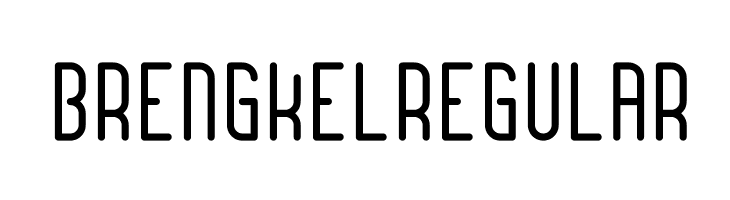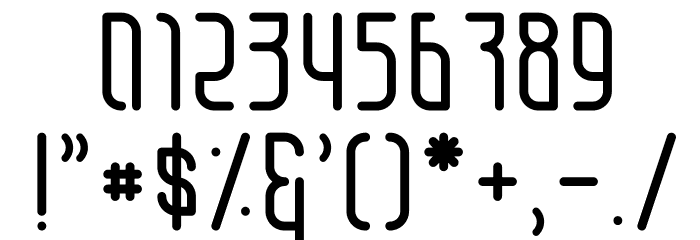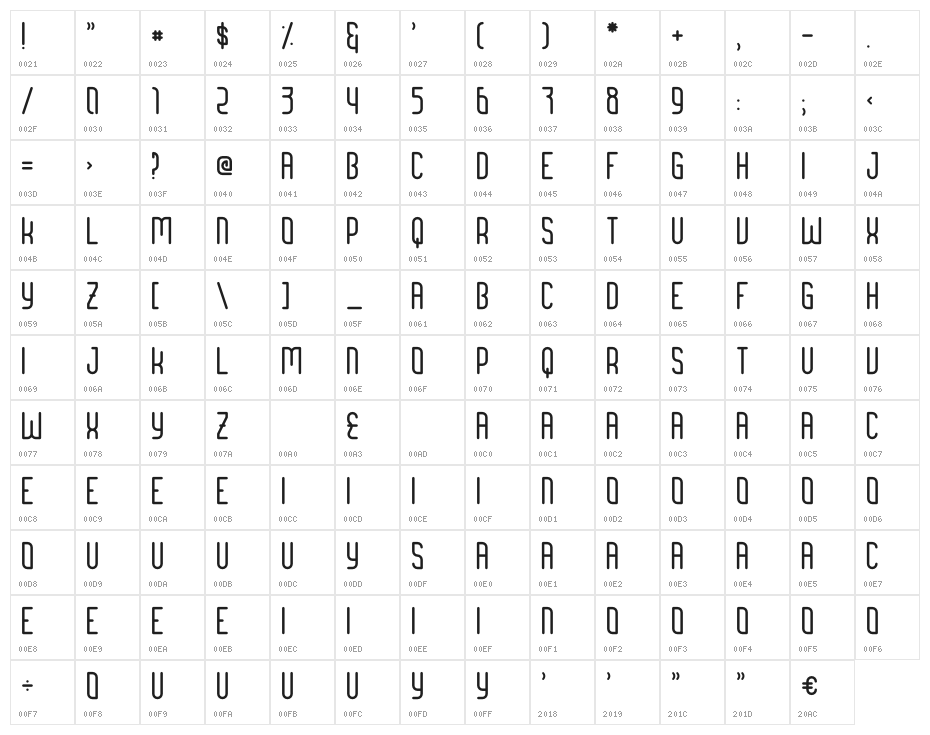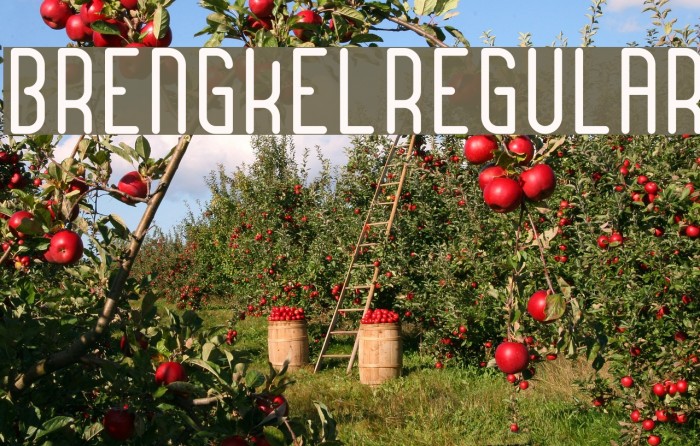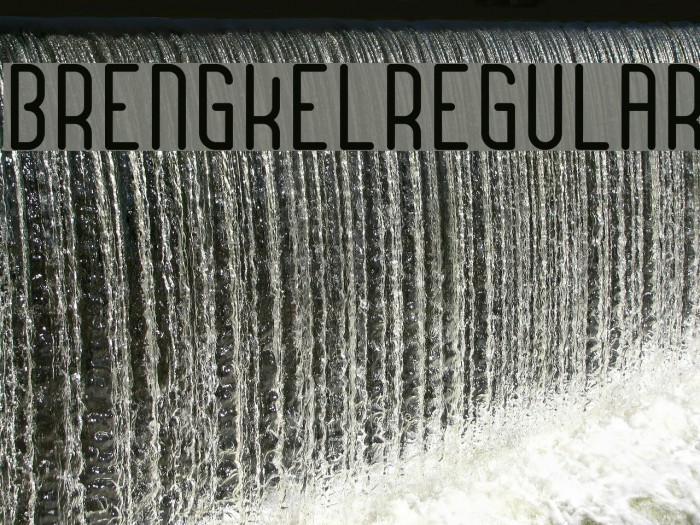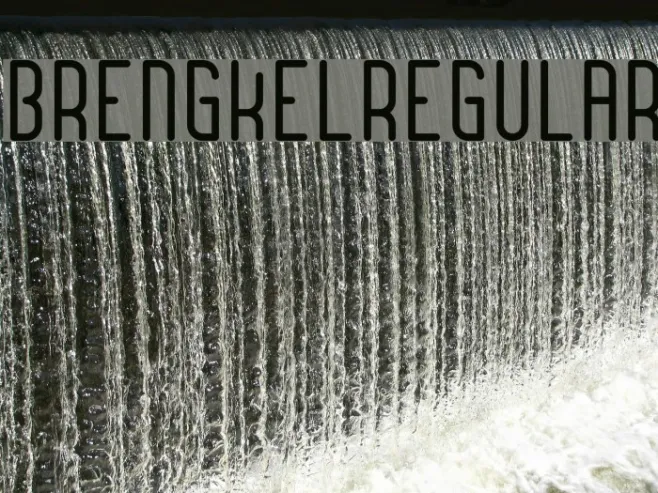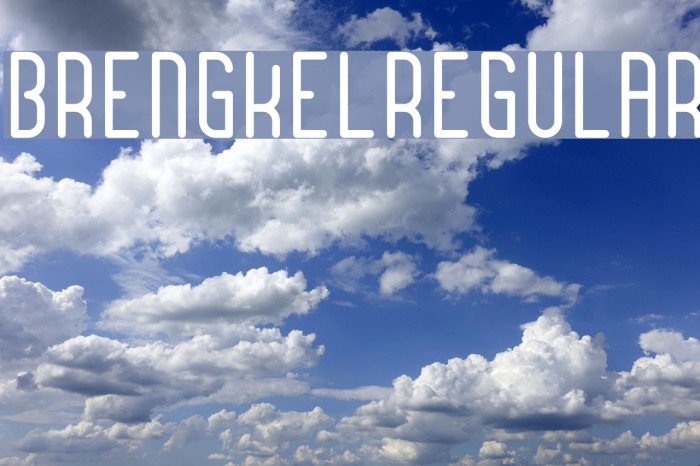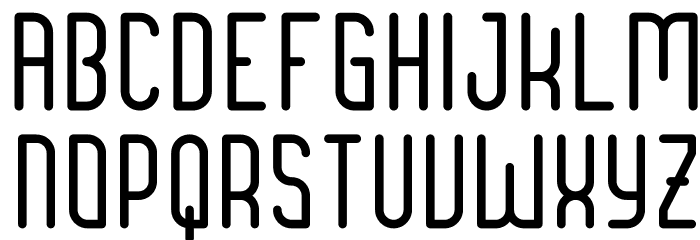
BrengkelRegular Font
BrengkelRegular Description
This font features a modern and geometric design with rounded corners and a monolinear stroke. The characters are evenly spaced, creating a clean and organized appearance. The uppercase and lowercase letters maintain a consistent height, contributing to its uniform look. The numerals and special characters are designed to match the overall style, ensuring a cohesive visual experience. Its simplicity and clarity make it suitable for various design applications.
| Proposed Projects | Ideal for digital interfaces, branding, signage, and editorial design. |